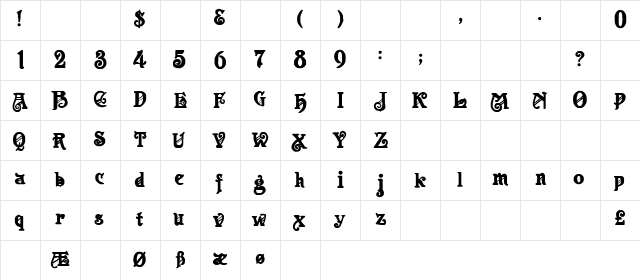
Apollo Regular
Design Context for Apollo
Apollo is a composed and adaptable typeface that performs quietly and consistently across a wide range of design contexts.